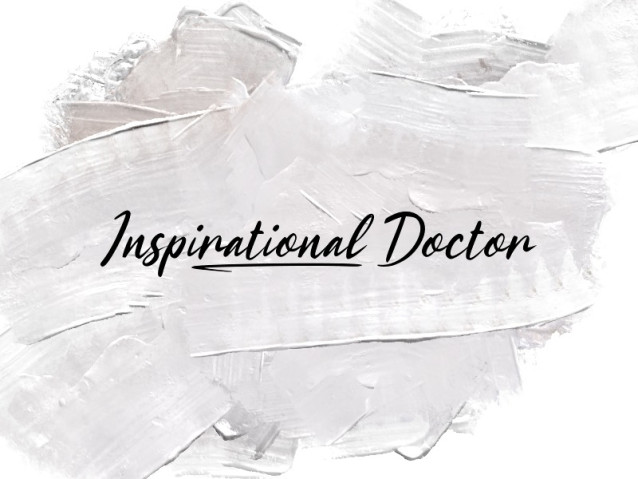
i Inspirational Doctor Font
i Inspirational Doctor Font is a beautiful handwritten font. This font has soft and neat lines that wave beautifully and still easy to read. This font has a lovely appearance making it suitable for many industries, such as beauty product, café, creative designer, event or wedding organizer, fashion, florist, homeware, photography, printing, publishing, writer, and more!